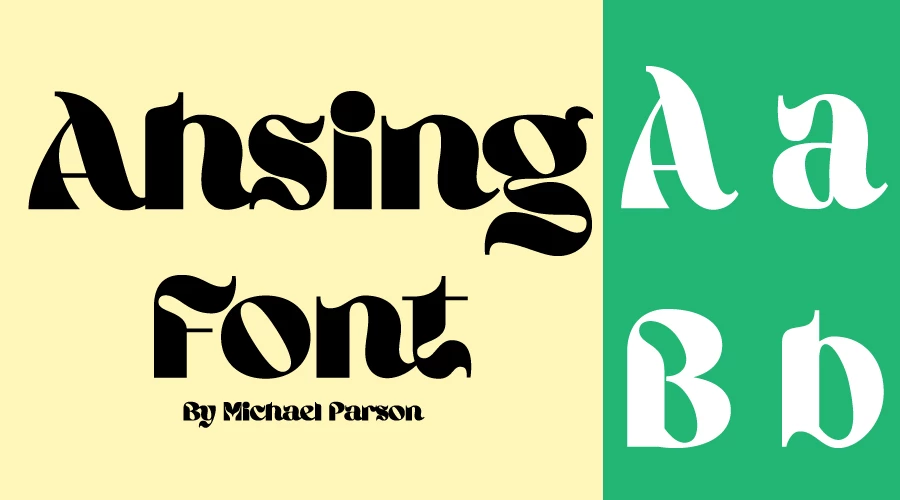
Ahsing Font
About The Ahsing font
The Ahsing font is an OpenType decorative font with a unique design. This design has a bold shape, a strong contrast, and a clear diagonal axis. It was designed by Michael Parson and published by Typogama in November 2019. Its goal is to find new ways to design things. This font is available in a single weight and its main purpose is to find new ways to design things.
Some Common Features of the Ahsing Font:
• It has an expanded character set.
• Best for titles and large text.
• It has 685 glyphs.
• Supports up to 26 languages.
ClassificationDisplay and Decorative
DesignerMichael Parson
FoundryTypogama